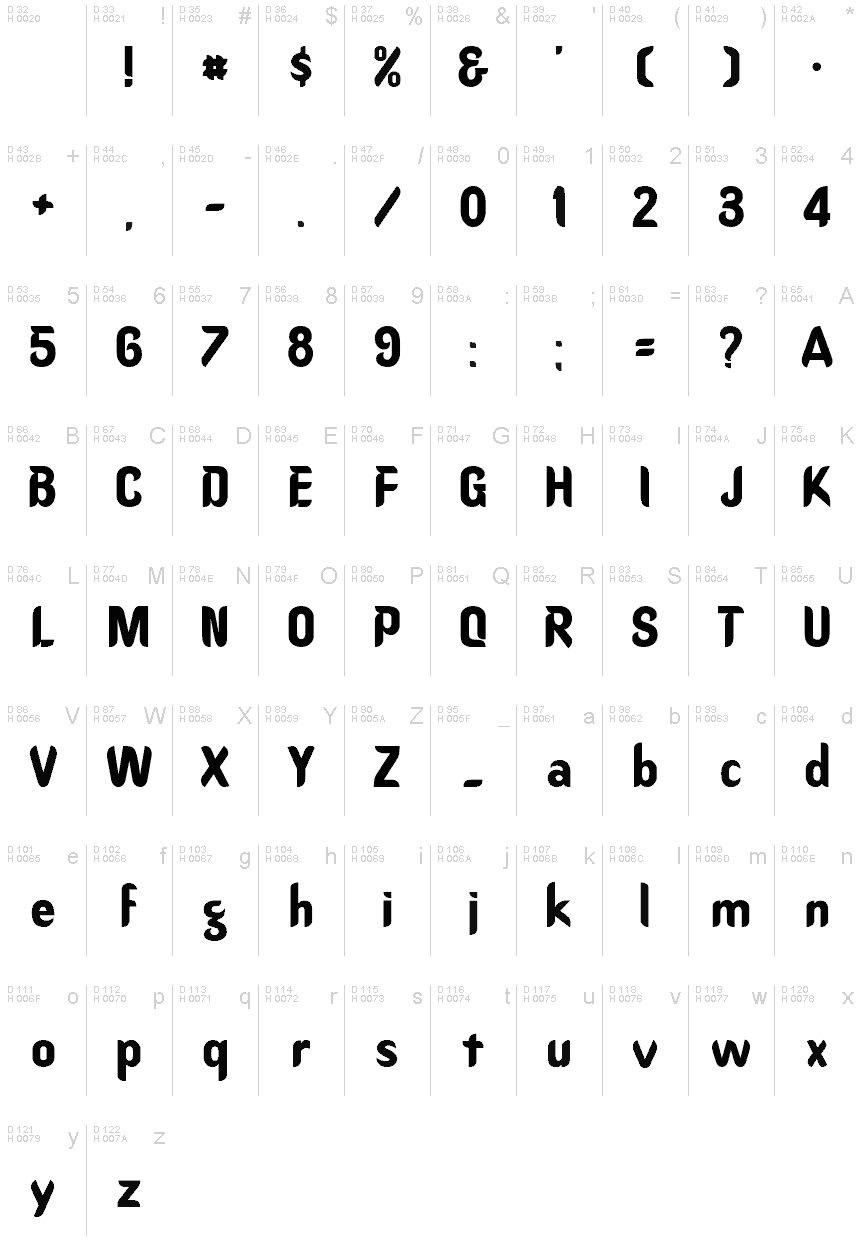
OregonDry Normal
Oregon Dry is a captivating display font that exudes an air of rugged, weathered elegance. Designed by Pat Snyder, this typeface boasts a distinctive, robust character that evokes the natural beauty and resilience of the Pacific Northwest.
The strong, geometric letterforms project a sense of stability and authority, while the subtle variations in stroke width and subtle imperfections lend a handcrafted, artisanal quality. This font's versatility shines in a wide range of applications, from bold headlines and high-impact branding to rustic packaging and editorial design.
Its unique blend of modern and vintage aesthetics makes Oregon Dry an invaluable asset for creatives seeking to capture a blend of grit and sophistication.
The strong, geometric letterforms project a sense of stability and authority, while the subtle variations in stroke width and subtle imperfections lend a handcrafted, artisanal quality. This font's versatility shines in a wide range of applications, from bold headlines and high-impact branding to rustic packaging and editorial design.
Its unique blend of modern and vintage aesthetics makes Oregon Dry an invaluable asset for creatives seeking to capture a blend of grit and sophistication.